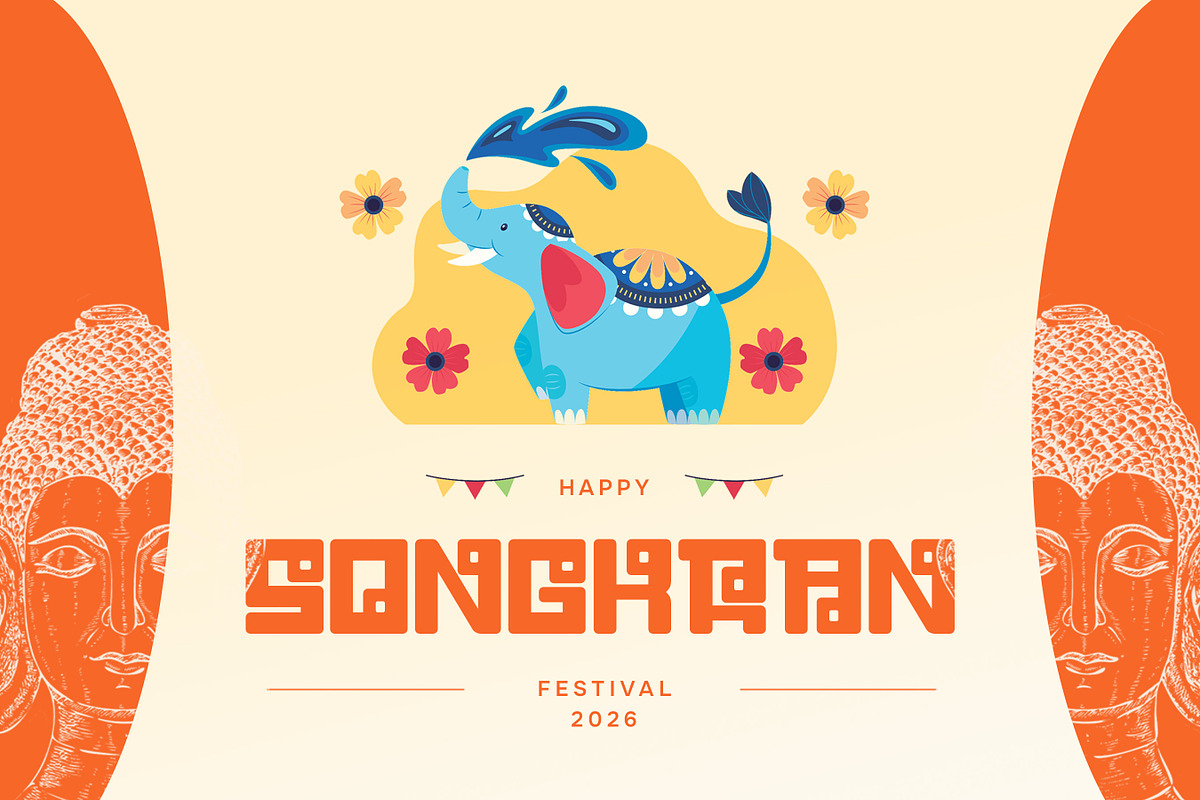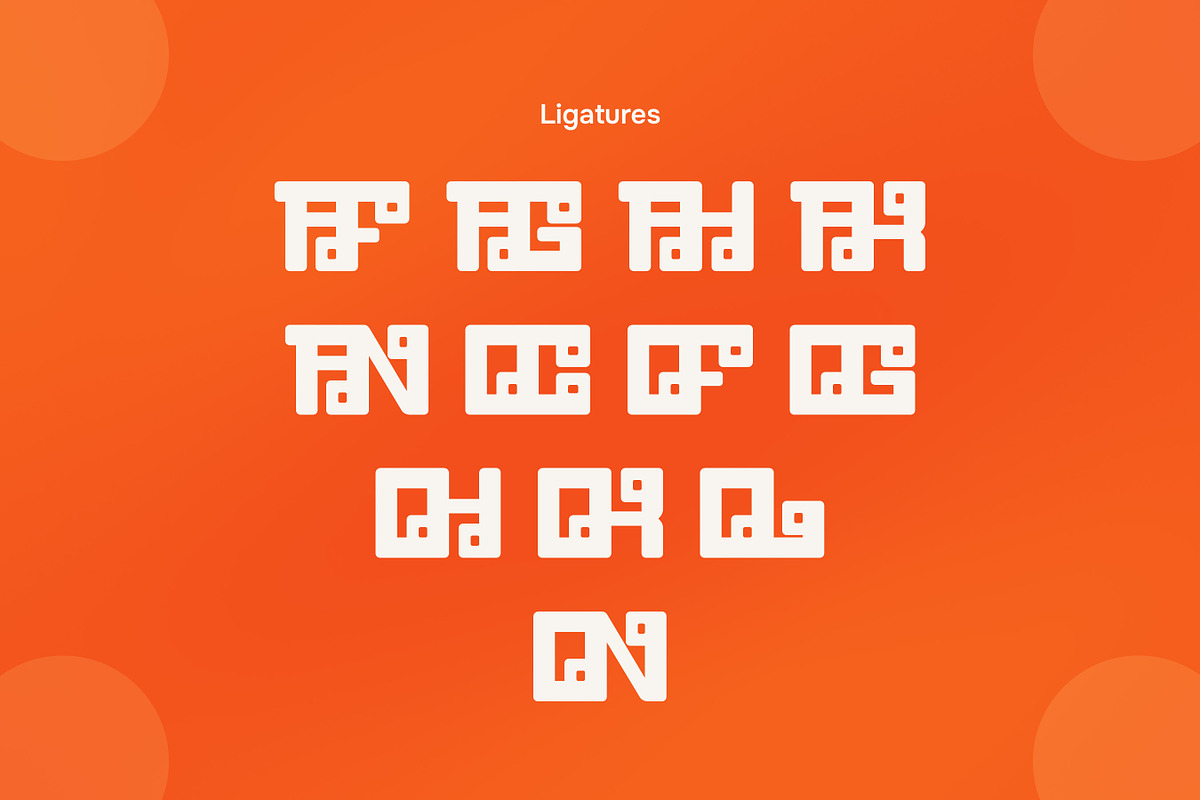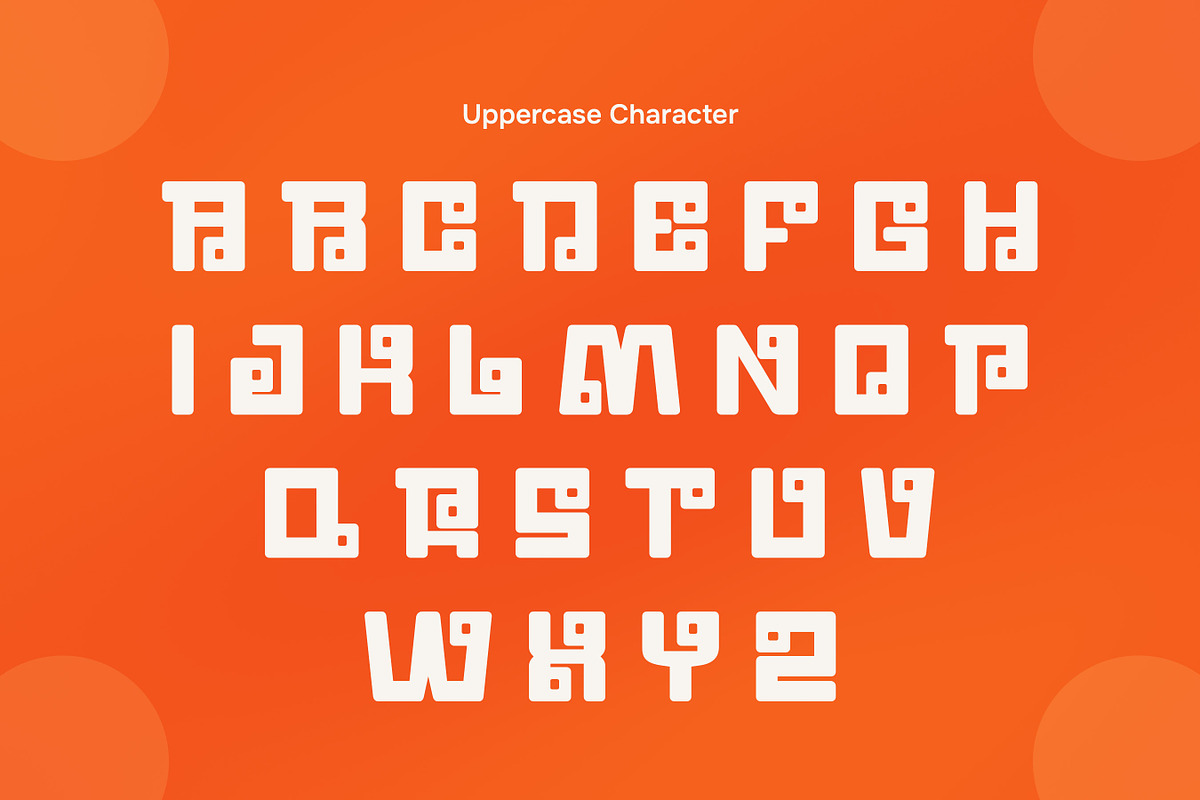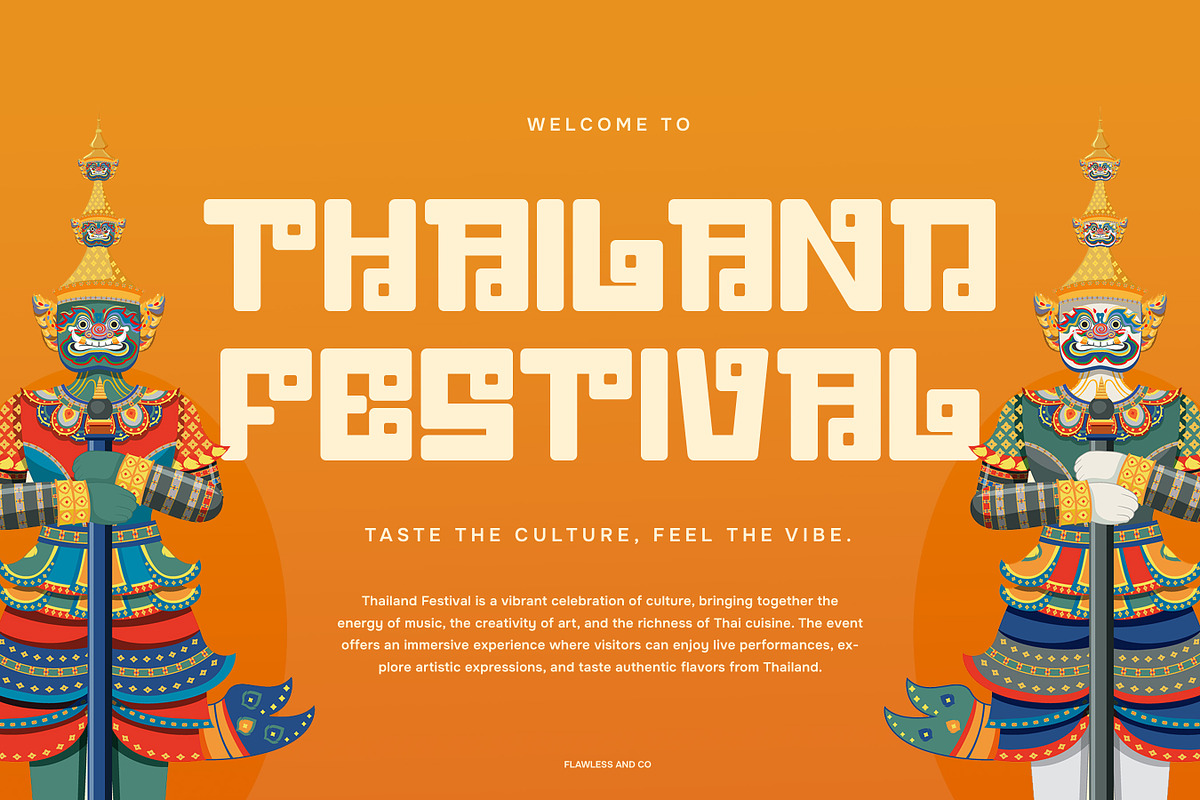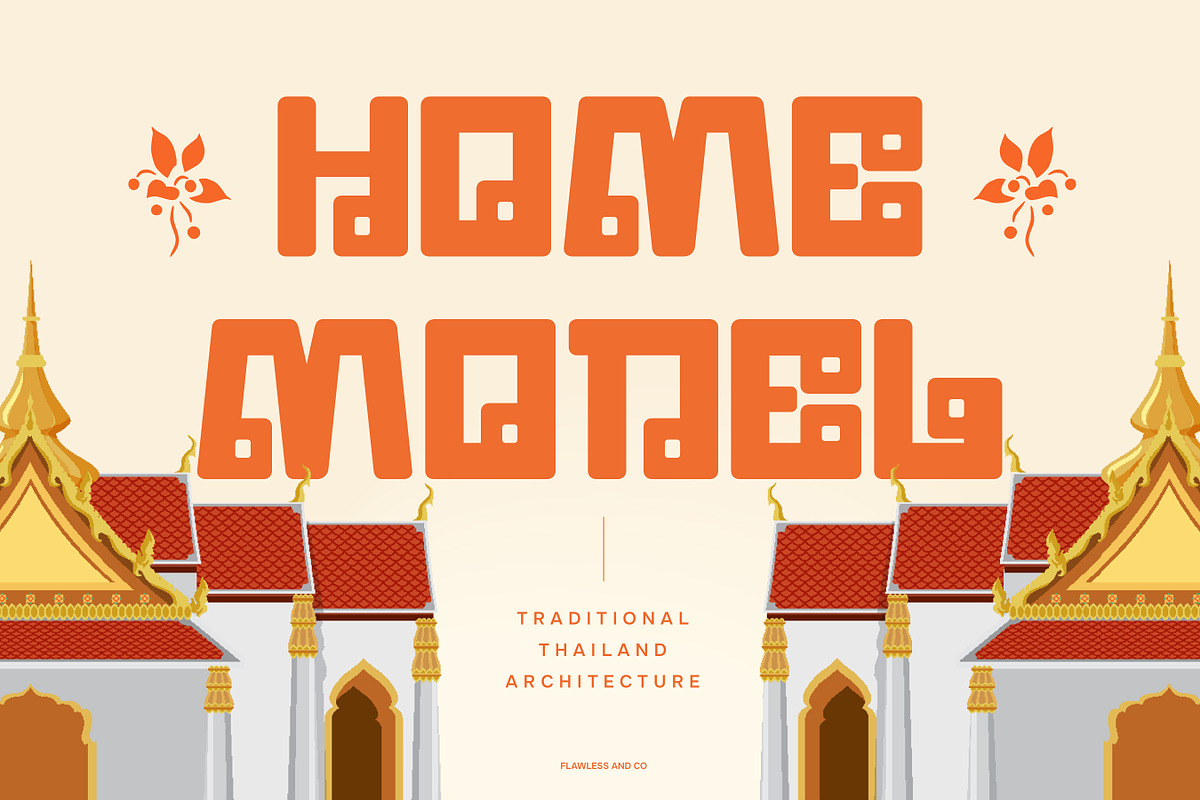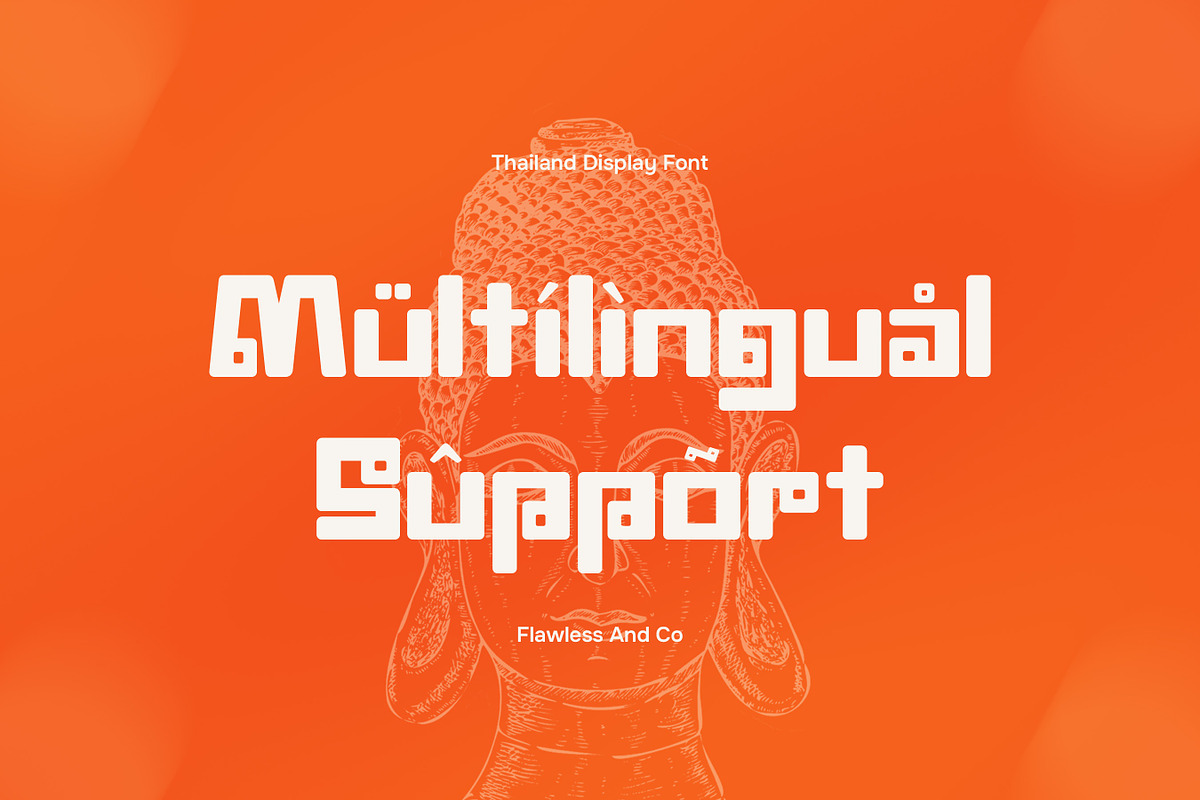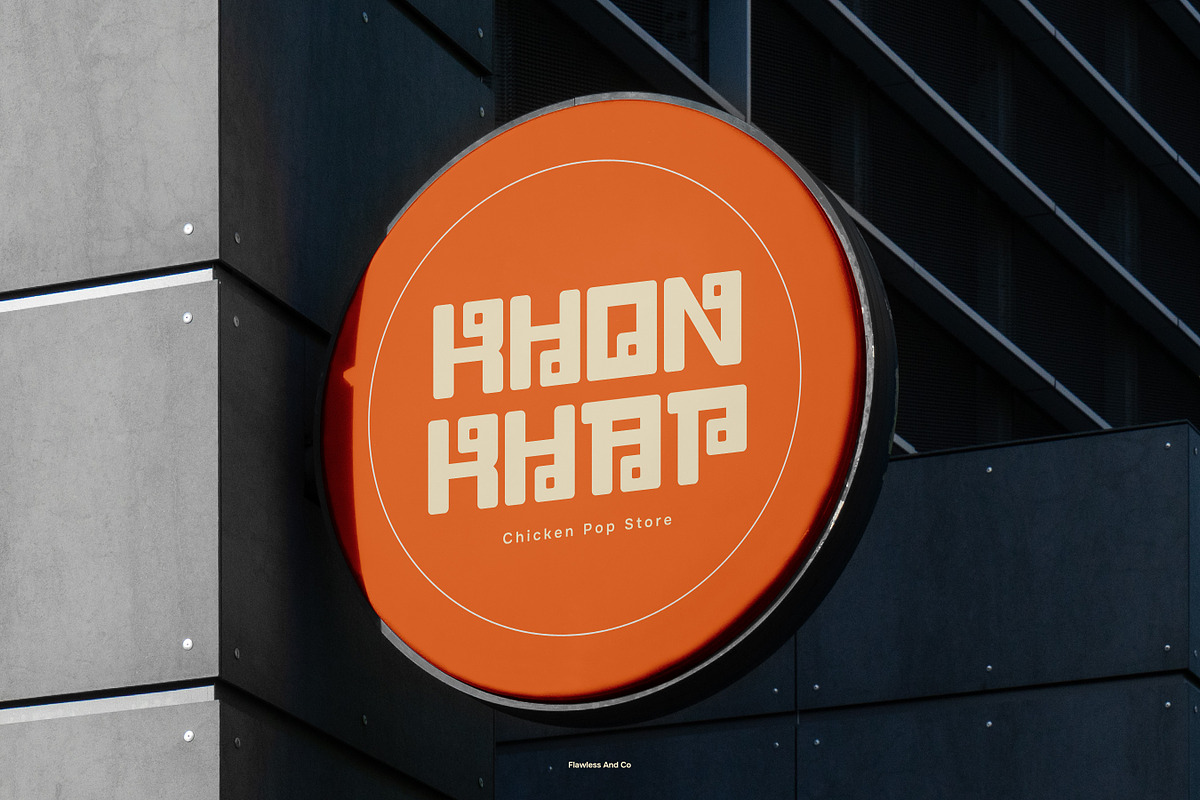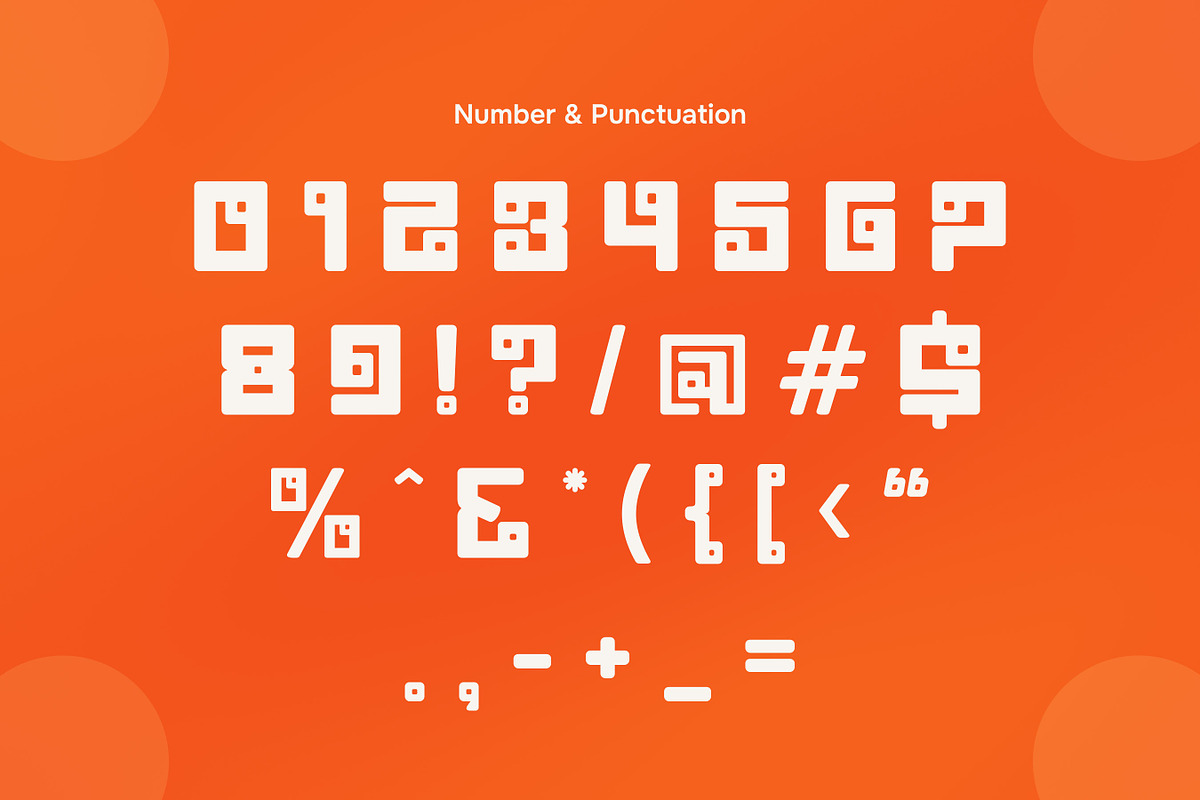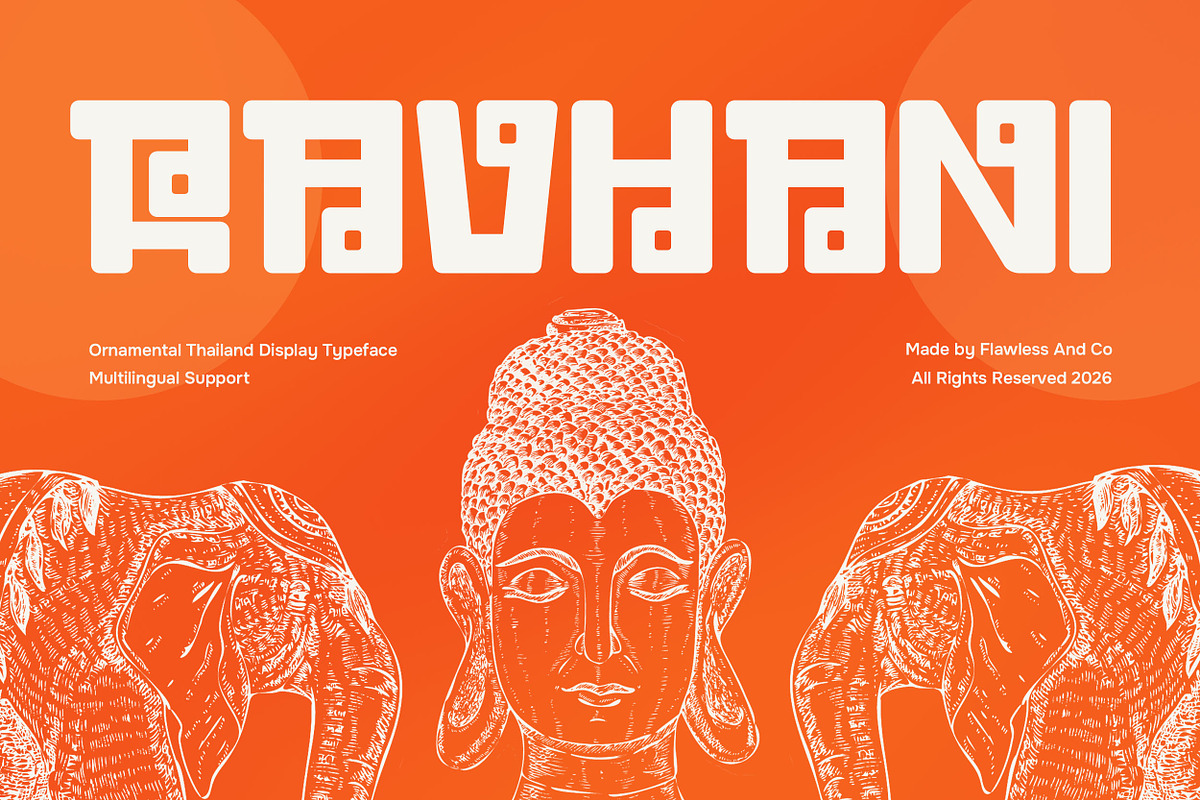
Ravhani - Thailand Display Font
Ravhani - Oriental Thailand Display Font
Ravhani is an oriental Thailand display font that captures the richness of Thai cultural aesthetics through elegant and decorative letterforms. Inspired by traditional Thai art and visual elements, Ravhani features graceful curves, intricate details, and distinctive shapes that create a unique and eye-catching typographic style. Designed for display purposes, Ravhani brings a strong cultural identity while maintaining a refined and modern presentation. Its ornamental character adds depth and sophistication, making it perfect for designs that aim to stand out with an artistic and exotic feel.
- Ornamental Details
Who Should Use Ravhani?
Ravhani is ideal for designers, creatives, and brands looking to incorporate Thai-inspired or oriental aesthetics into their work. It’s especially suited for projects that require decorative, cultural, and visually rich typography.
Suitable For:
- Thai and Asian-themed branding
- Cultural and festival design
- Restaurant and hospitality branding
- Posters and artistic headlines
- Packaging and product labels
- Tourism and travel design
- Social media graphics
- Decorative typography projects